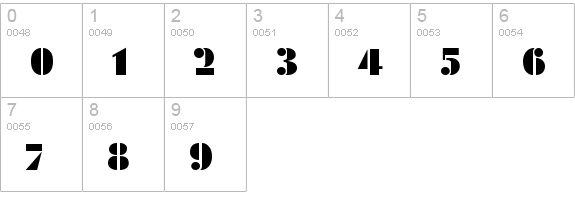
FuturistBlack Regular Font Details
FuturistBlack Regular is the standard, neutral variant in the FuturistBlack typeface family \xE2\x80\x94 well suited to general body text, paragraphs, and standard typographic work.
FuturistBlack Regular font is a sleek and modern typeface that exudes a sense of innovation and forward-thinking design. With its clean lines and geometric shapes, this font is perfect for creating a futuristic and cutting-edge look in your projects. The bold and impactful letterforms make a strong visual statement, while still maintaining readability. What sets FuturistBlack Regular font apart is that it is available for free download at FontsMarket.com. This means you can easily access this stylish font to elevate your designs without any cost. Whether you're working on branding, advertising, or any other creative project, FuturistBlack Regular font is a versatile choice that will help you stand out from the crowd. Download it today and add a touch of modern sophistication to your work.